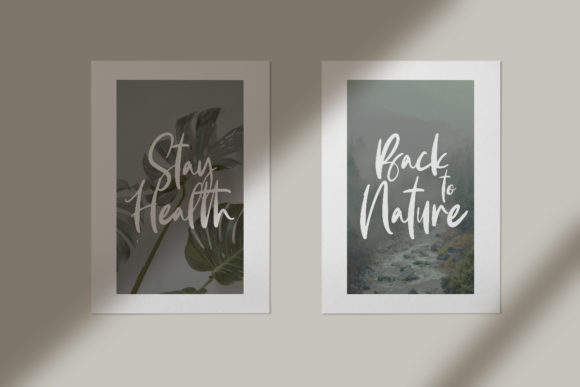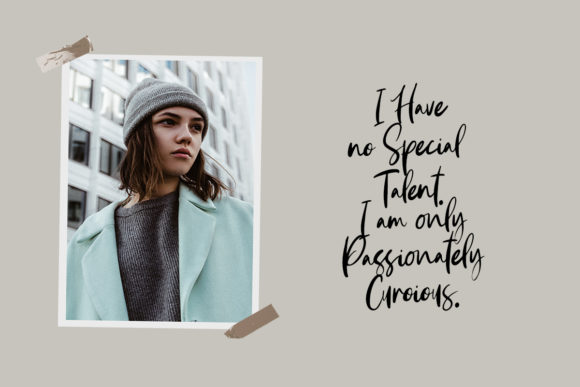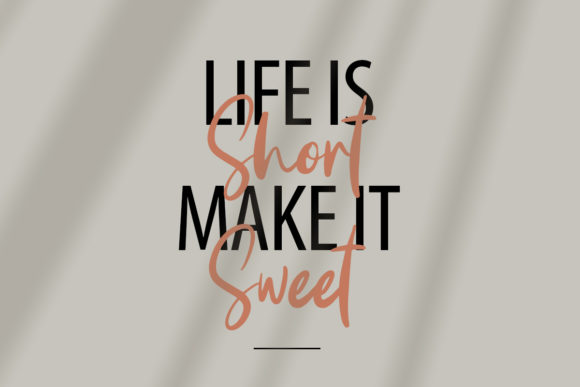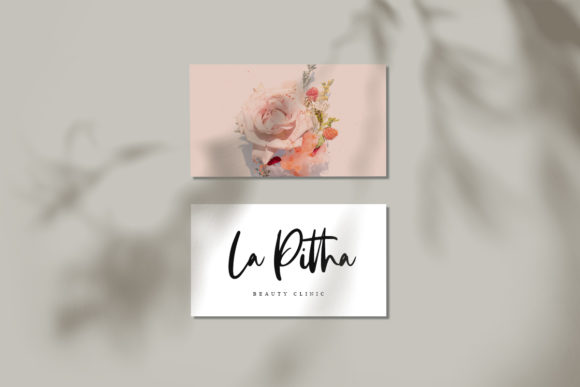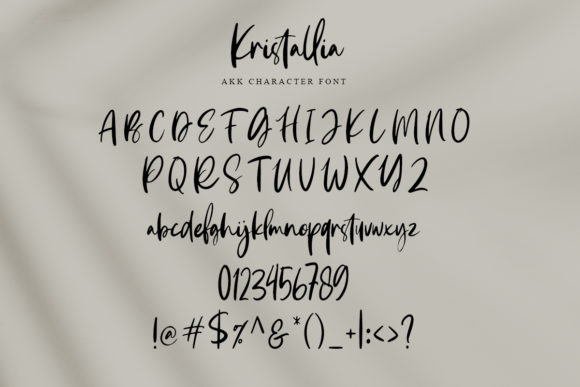
Introduction to Kristallia Font
As a designer, there’s nothing quite like that moment when a new font sparks creativity and inspires a project to come to life. For me, it was the first time I laid eyes on the Kristallia Font – a bold, handwritten masterpiece that screams ‘unique’ and ‘handcrafted.’ Its high quality and organic feel make it the perfect fit for any creative project, from logos and branding to social media graphics and crafty DIY projects.
The Kristallia Font is a valuable addition to any designer’s toolkit, offering a fresh and stylish design resource that’s sure to elevate your work. Whether you’re working on a personal project or collaborating with clients, this font is sure to bring a touch of personality and whimsy to your designs.
Key Features of Kristallia Font
- Unique, elegant design with transparent background for a seamless look
- Supports a wide range of resolutions and sizes, making it versatile for various applications
- Part of a larger collection of fonts designed to provide a cohesive and stylish look for your creative project
- Perfect for use in digital design, print media, and web development
Honest Review: Kristallia Font
I recently stumbled upon the Kristallia Font, and I must say it’s a high quality design resource that caught my attention. As a designer, I’m always on the lookout for unique and creative fonts that can elevate my projects. The Kristallia Font delivers, with its elegant and sophisticated design that’s perfect for any creative project.
One of the standout features of the Kristallia Font is its transparent background, which makes it incredibly versatile and easy to use. I appreciate how the font’s design allows for seamless integration with any background image or color scheme.
Here are some of the things that work well with the Kristallia Font:
- ✨ Elegant and sophisticated design
- ✨ High quality vector graphics
- ⚠️ Limited character set (may not be suitable for complex text-based projects)
- ⚠️ Not as extensive a font family as some other options
Overall, I’m impressed with the Kristallia Font and would recommend it to designers looking for a high-quality, creative font for their projects. Its elegant design and transparent background make it a versatile choice that can be used in a variety of contexts.
Tips for Getting the Most Out of Kristallia Font
To get the most out of the Kristallia Font, experiment with different font sizes and styles. You can also use the font in combination with other design elements to create a unique and eye-catching design.
Common Use Cases for Kristallia Font
The Kristallia Font is perfect for a variety of creative projects, including infographics, posters, and social media graphics. Its high-quality design and transparent background make it a great choice for designers looking for a unique and professional-looking font.
Alternatives to Kristallia Font
Bangers Font is a high-quality, modern sans-serif font ideal for creative projects. Its bold and playful style makes it perfect for headings and titles in design. When to use: For designs that require a fun and energetic feel. Compared to Kristallia Font: Bangers Font has a more dramatic and attention-grabbing effect, whereas Kristallia Font is more elegant and sophisticated.
Great Vibes Font is a beautiful, elegant script font suitable for design projects that require a touch of sophistication. Its smooth lines and flowing curves make it perfect for titles and headings. When to use: For designs that require a high-end and luxurious feel. Compared to Kristallia Font: Great Vibes Font has a more refined and polished look, whereas Kristallia Font has a more delicate and intricate design.
Does the Kristallia Font support transparent backgrounds?
Yes, the Kristallia Font supports transparent backgrounds. The font’s design allows for a transparent background, making it ideal for creative projects that require a high level of design flexibility.